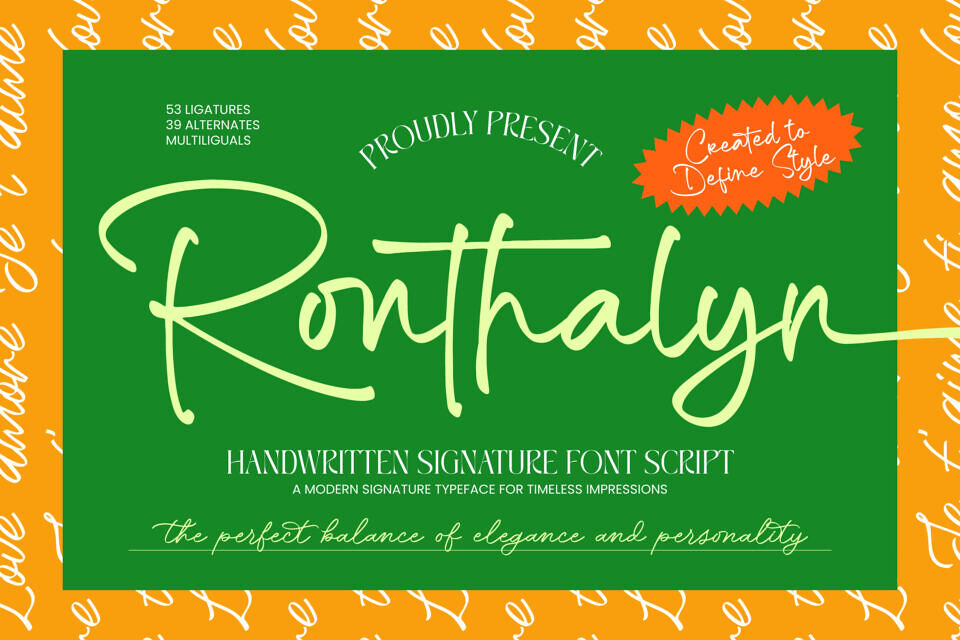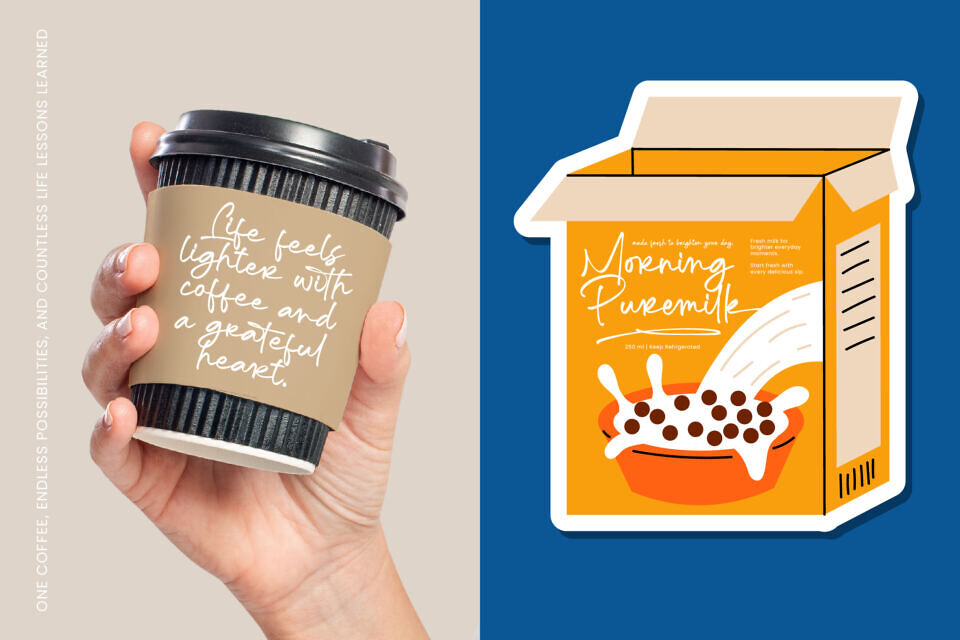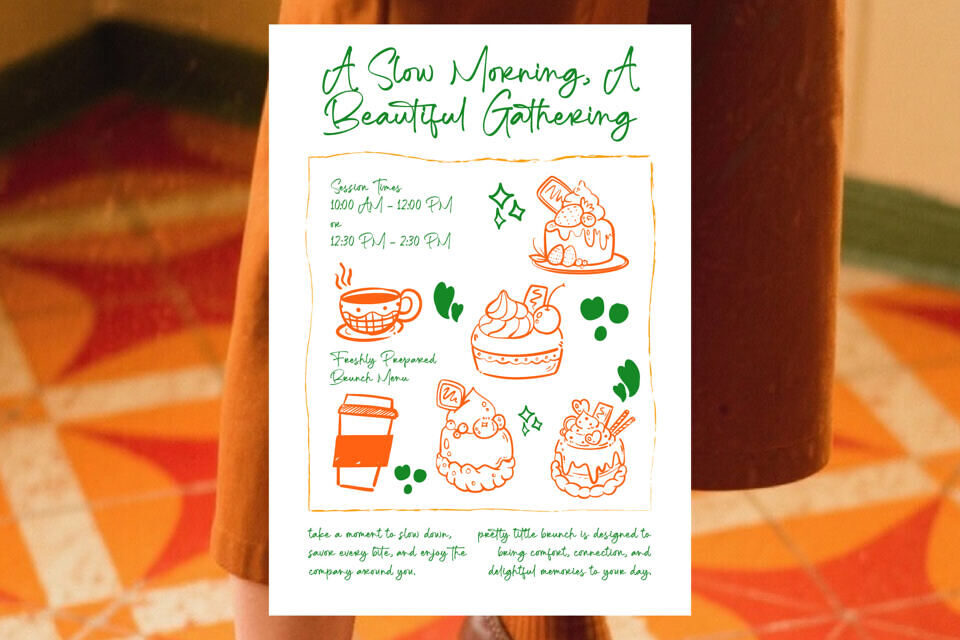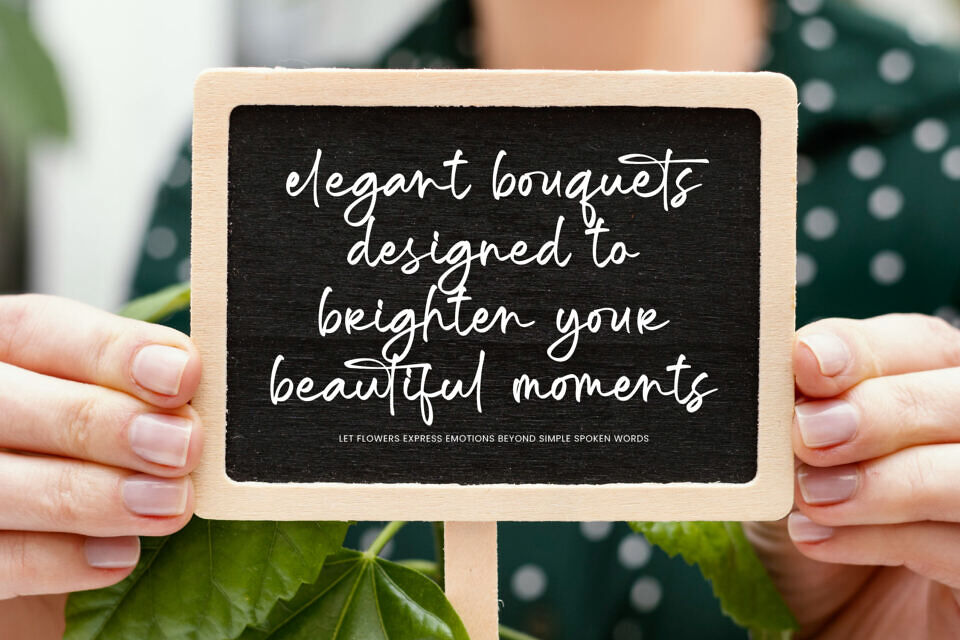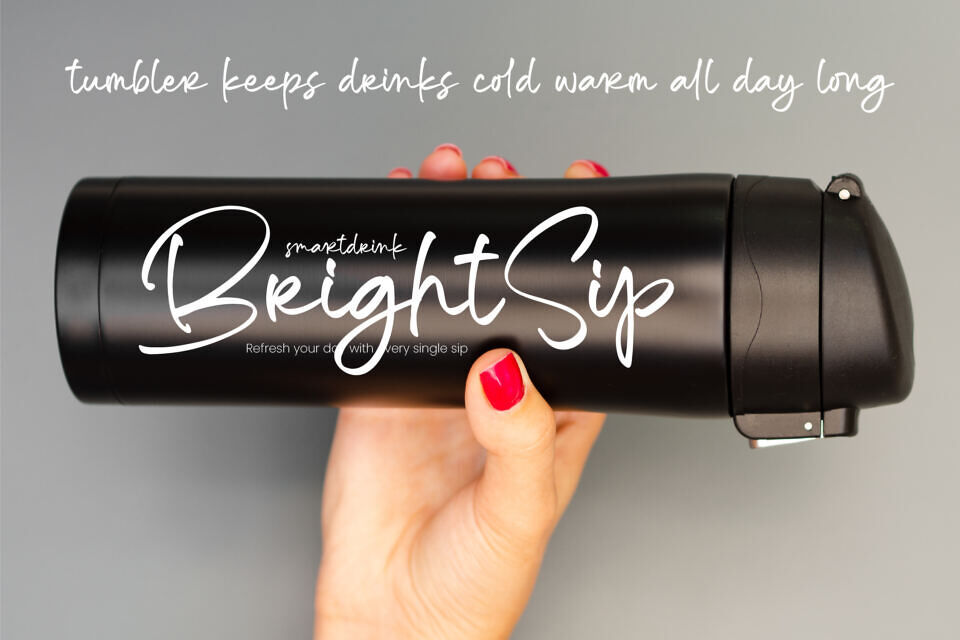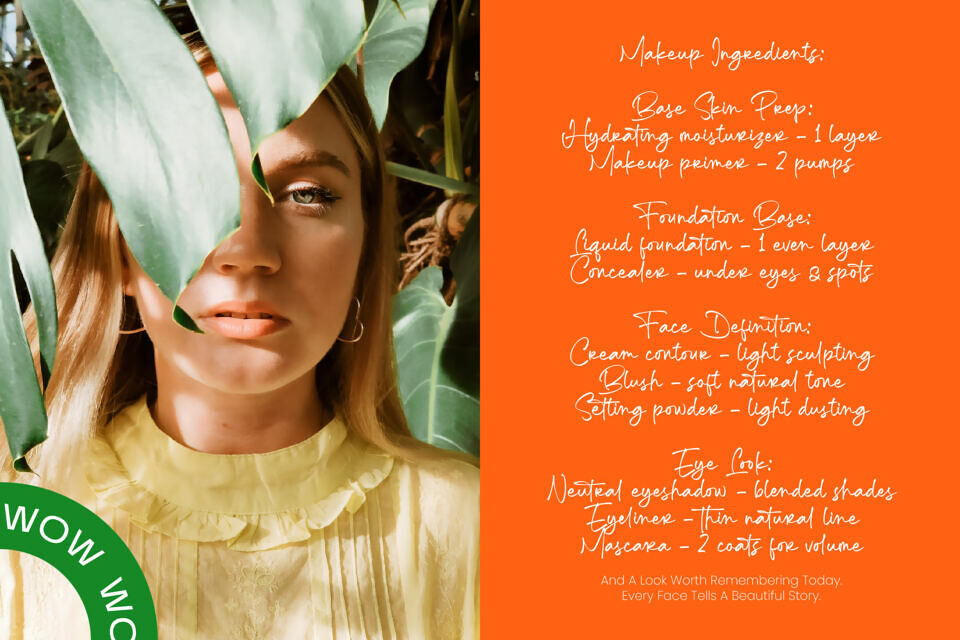
Add sophistication to your design with Ronthalyn, a handwritten font featuring fluid motion and organic strokes. Its bespoke feel conveys luxury and personality. With 53 custom ligatures and 39 stylistic alternates, it offers a customized look.
Perfect for high-end ventures, Ronthalyn is ideal for luxury branding, premium packaging, and editorial design, delivering a consistent, refined aesthetic. Its versatility and multilingual support make it suitable for international projects and diverse applications.